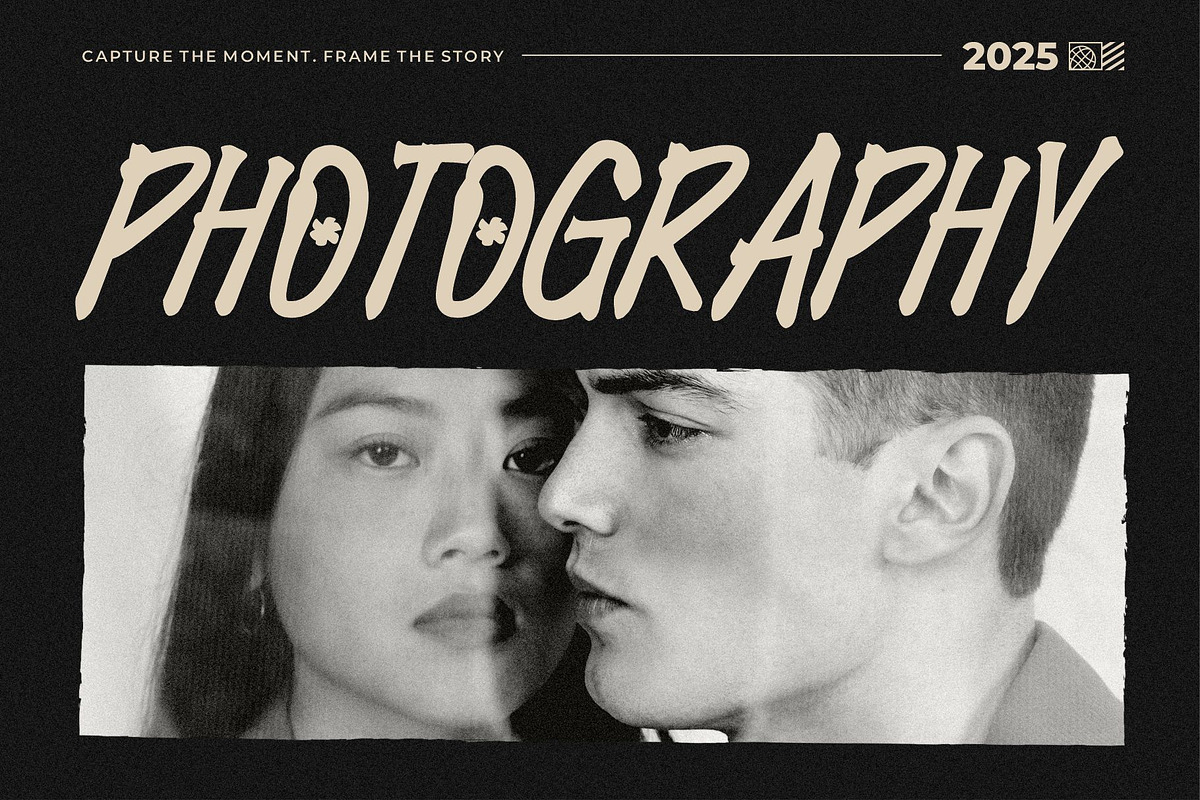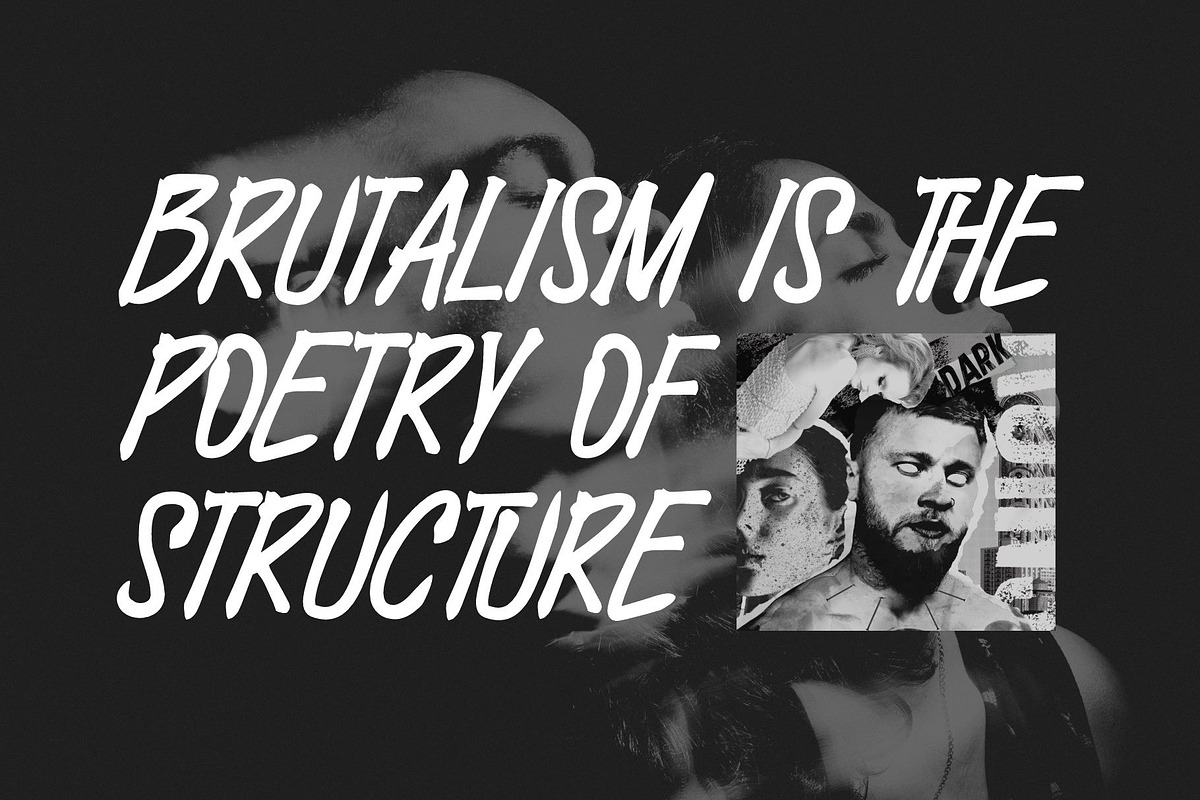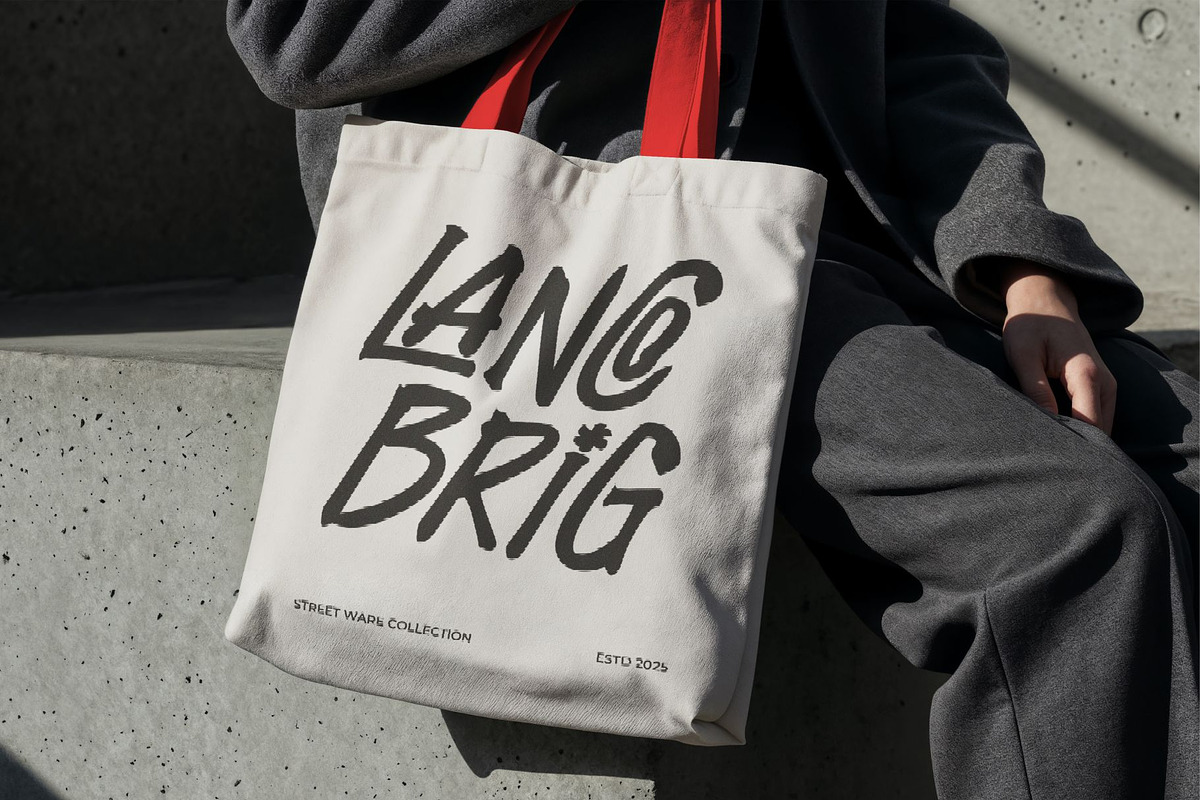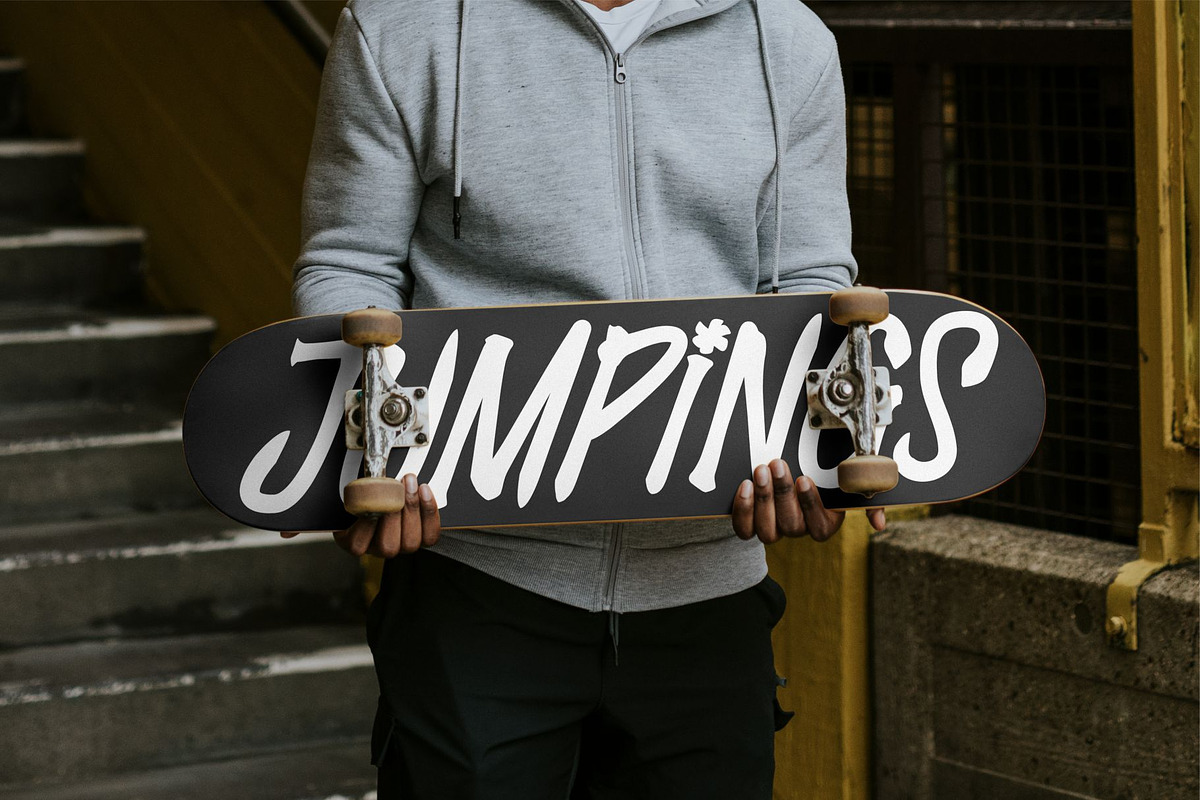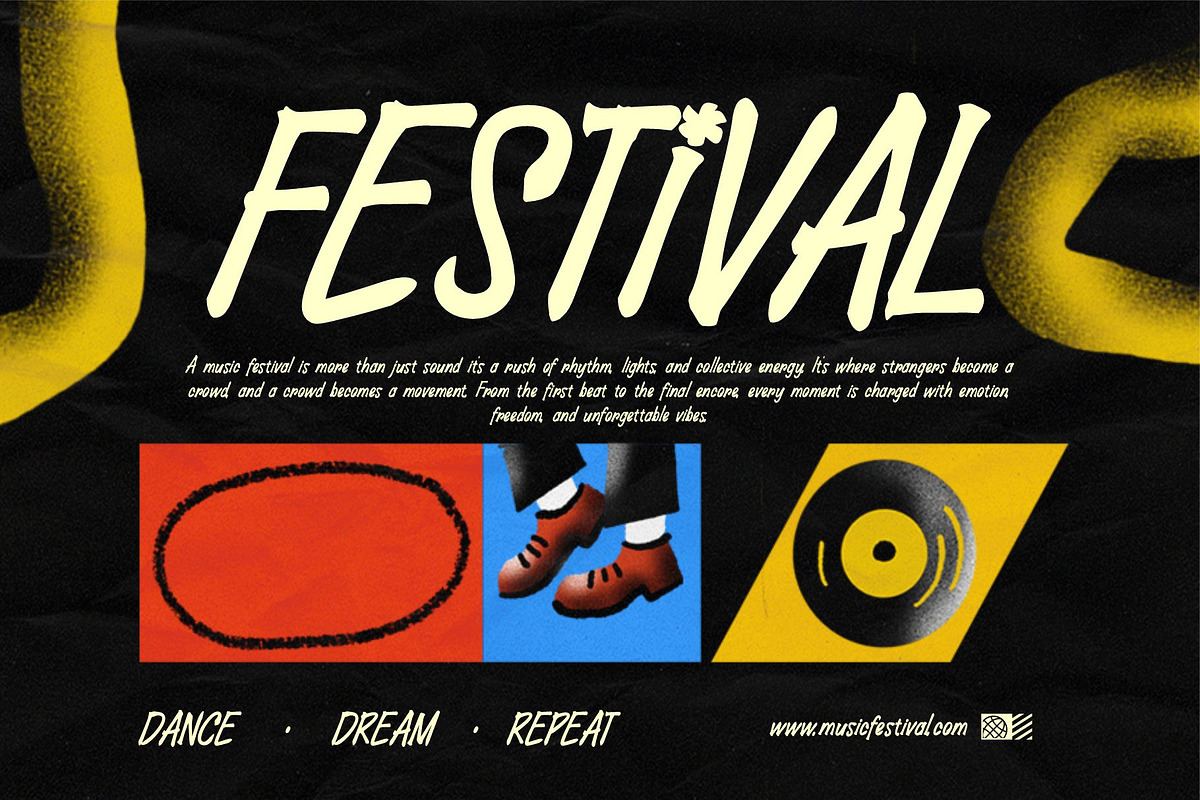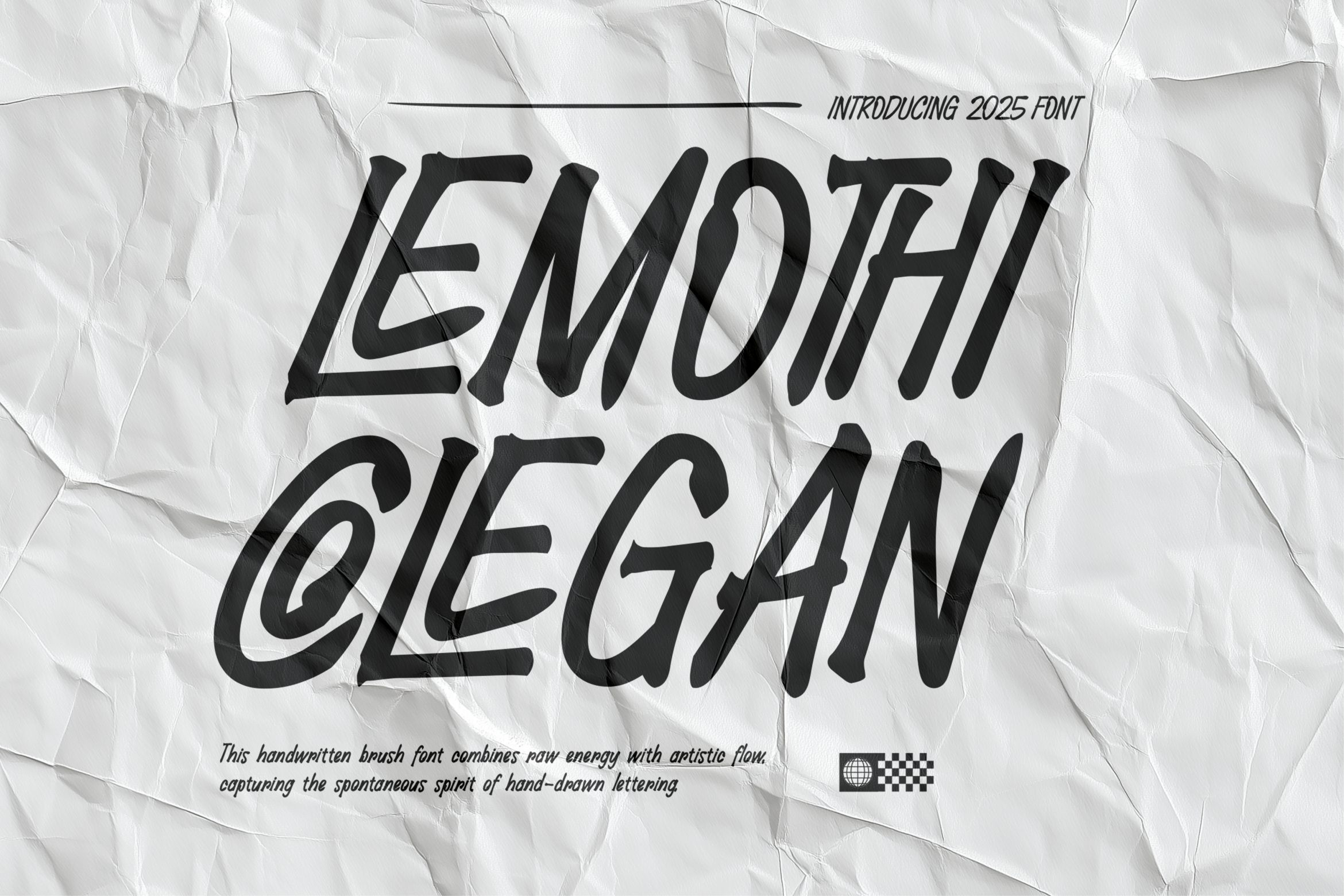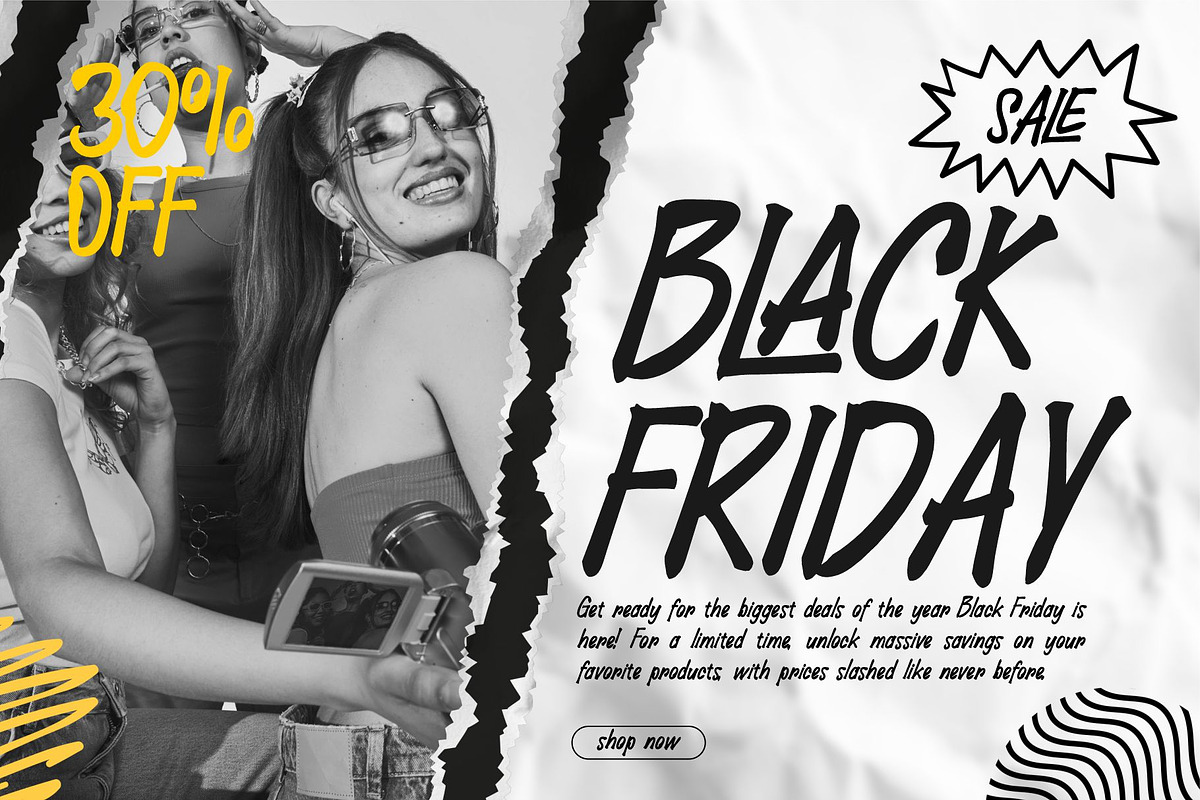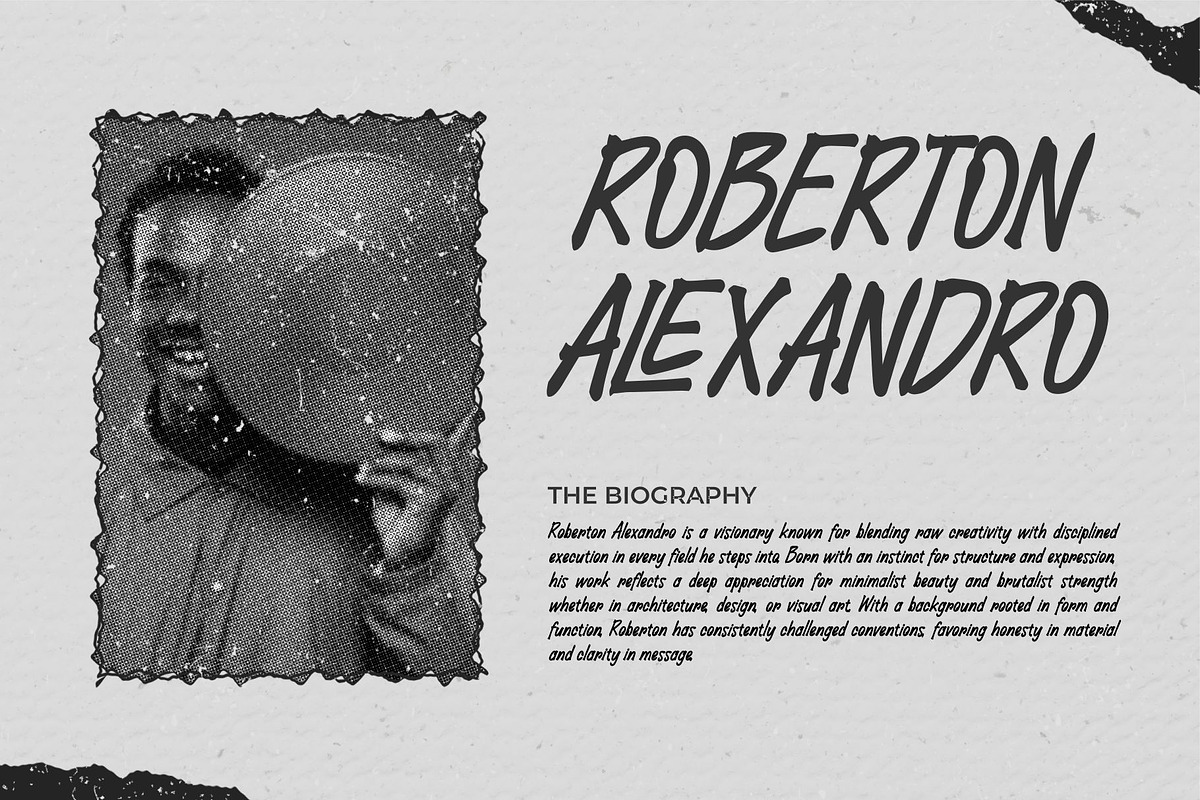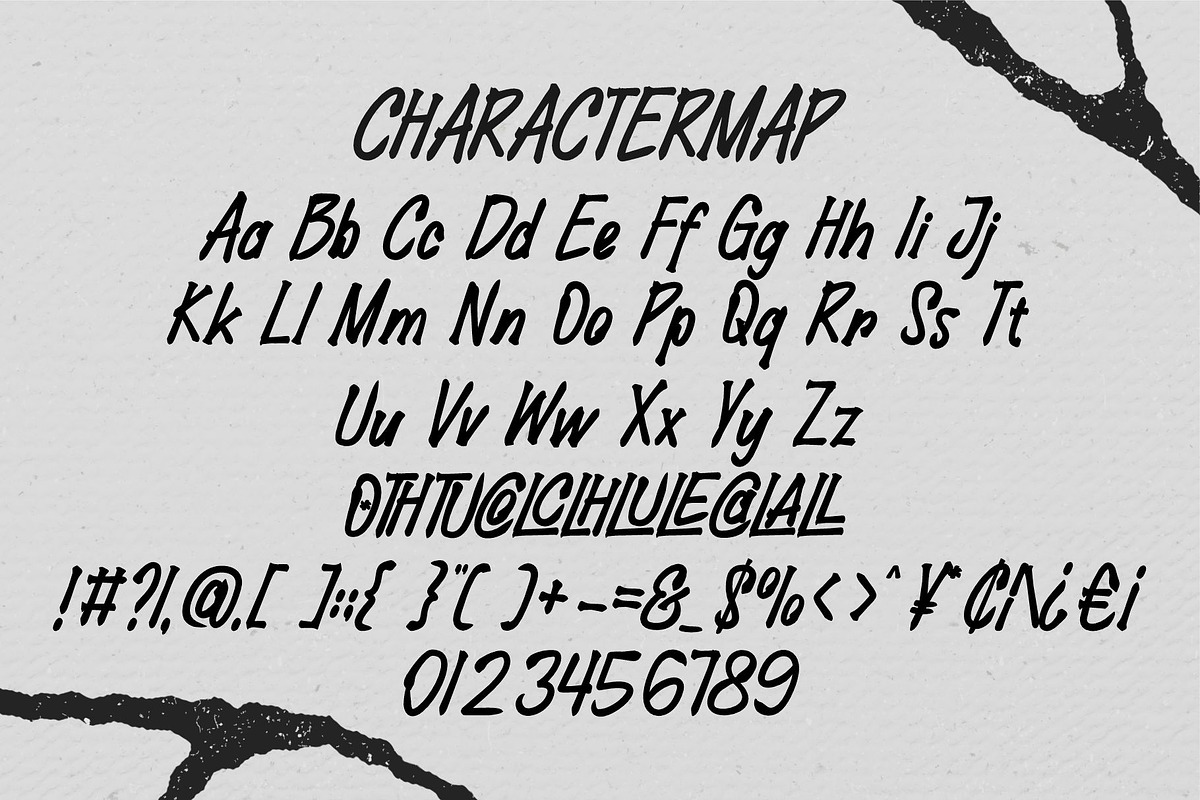
Lemothi Colegan || Handwritten Font
Introducing Lemothi Colagen, a freestyle brush font moving with energy. This font was created with digital brush strokes, carefully vectorized to keep the textures. Lemothi Colagen is a street font that delivers a loud message and strong.
This font equipped with stylistic alternates to gives a more powerful design. Lemothi Colagen is ideal for logos, banners, quotes, books, social media posts, posters, flyers, stickers, and many more!
- Smallcaps
- Stylistic alternates